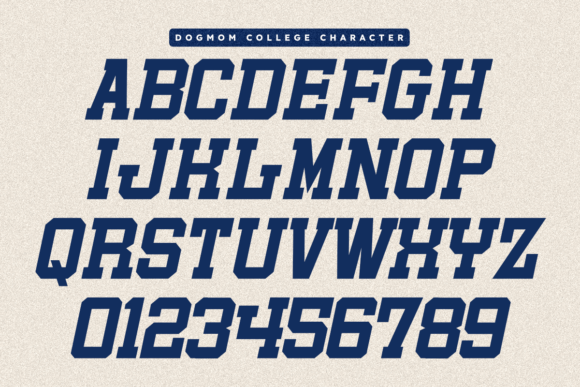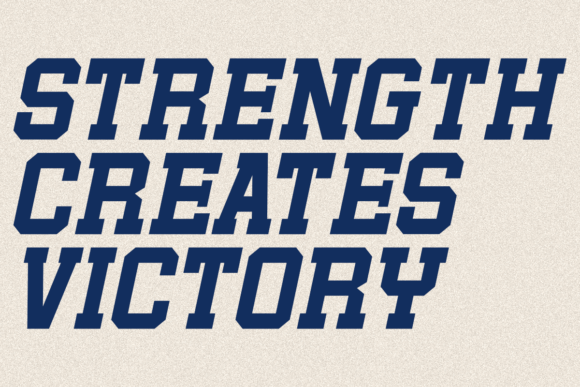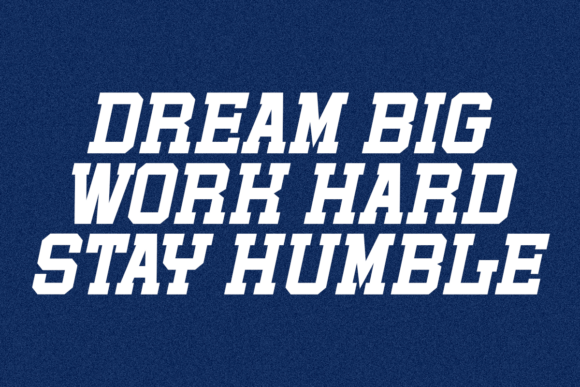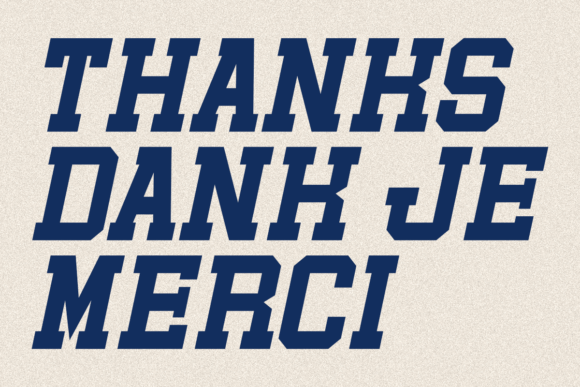
Unleash the Spirit of Team Pride with Dogmom College Font
Are you a designer or crafter looking for a font that embodies the energetic and nostalgic vibe of traditional athletic branding? Look no further than Dogmom College Font, a definitive college varsity slab serif font that brings the spirited energy of the campus to your designs. With its unique character, geometric strength, and nostalgic “letterman” silhouette, Dogmom College is the perfect choice for sports team logos, university-themed apparel, high-impact editorial headers, and classic collegiate lifestyle branding.
Key Features of Dogmom College Font
- Heavy, Blocky Anatomy: Dogmom College features a sturdy, blocky anatomy that exudes confidence and authority, making it perfect for creating bold and eye-catching designs.
- Sharp, Angular Serifs: The font’s sharp, angular serifs add a touch of sophistication and elegance, while also maintaining a strong connection to traditional athletic branding.
- Dynamic Slant: The dynamic slant of Dogmom College gives it a sense of energy and movement, capturing the quintessential aesthetic of sports teams and university spirit.
- Unyielding Geometric Strength: The font’s geometric strength is unyielding, providing a solid foundation for creating visually striking designs that demand attention.
- Nostalgic “Letterman” Silhouette: Dogmom College’s nostalgic “letterman” silhouette is reminiscent of classic athletic wear, evoking memories of traditional letterman jackets and varsity apparel.
Perfect for Sports Teams and University-Themed Designs
Dogmom College Font is specifically designed for sports teams, universities, and lifestyle brands that want to evoke the spirit of team pride and school loyalty. Whether you’re creating logos, apparel, or editorial content, Dogmom College delivers a sense of professional authority and legendary school spirit to your visual identity. With this font, every word feels like a permanent and authoritative statement of team pride.
Use Cases for Dogmom College Font
- Sports Team Logos: Create bold and eye-catching logos for sports teams, using Dogmom College’s heavy, blocky anatomy and sharp, angular serifs to convey strength and confidence.
- University-Themed Apparel: Design university-themed apparel, such as t-shirts, hoodies, and hats, using Dogmom College’s nostalgic “letterman” silhouette and dynamic slant to evoke memories of traditional athletic wear.
- High-Impact Editorial Headers: Use Dogmom College’s unyielding geometric strength and sharp, angular serifs to create high-impact editorial headers that demand attention and convey authority.
- Classic Collegiate Lifestyle Branding: Create classic collegiate lifestyle branding, such as posters, flyers, and brochures, using Dogmom College’s unique character and nostalgic vibe to evoke the spirit of team pride and school loyalty.
Why Choose Dogmom College Font?
Dogmom College Font is an extraordinary choice for designers and crafters looking for a font that embodies the energetic and nostalgic vibe of traditional athletic branding. With its unique character, geometric strength, and nostalgic “letterman” silhouette, Dogmom College delivers a sense of professional authority and legendary school spirit to your visual identity. Whether you’re creating sports team logos, university-themed apparel, or high-impact editorial headers, Dogmom College is the perfect choice for bringing the spirited energy of the campus to your designs.
In conclusion, Dogmom College Font is a definitive college varsity slab serif font that brings the spirited energy of the campus to your designs. With its unique character, geometric strength, and nostalgic “letterman” silhouette, Dogmom College is the perfect choice for sports teams, universities, and lifestyle brands that want to evoke the spirit of team pride and school loyalty. So why wait? Unleash the spirit of team pride with Dogmom College Font and bring the energy of the campus to your designs!